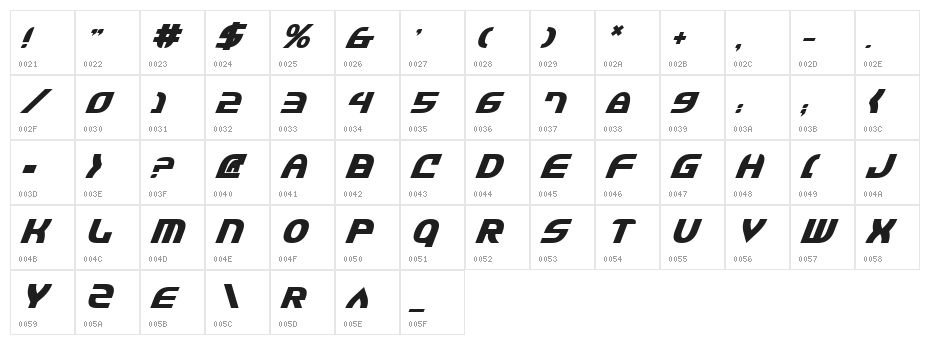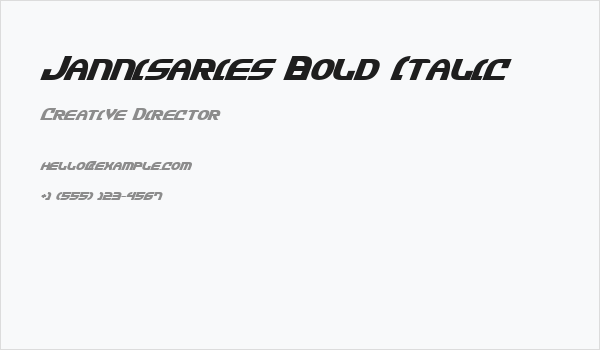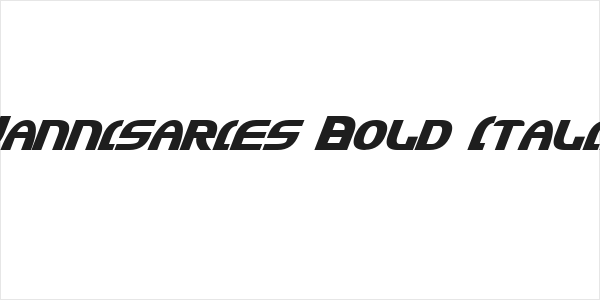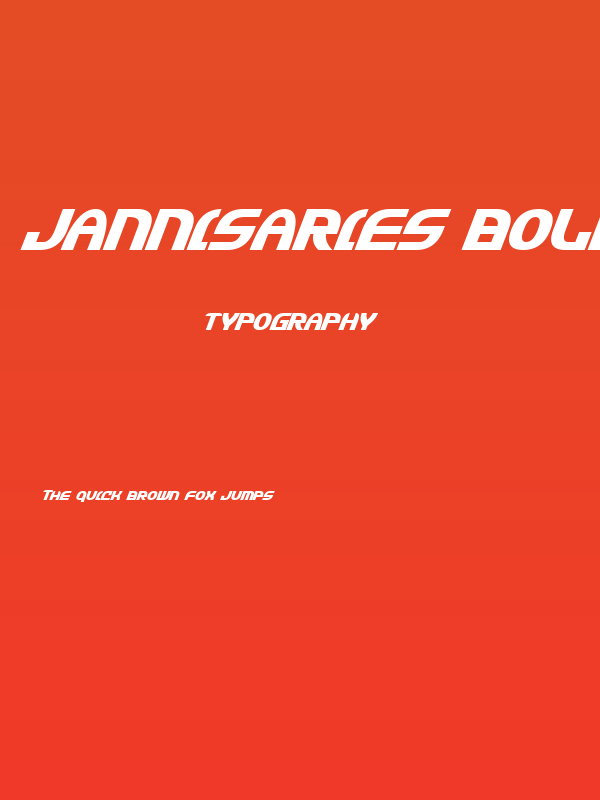
Jannisaries Bold Italic Font
Jannisaries Bold Italic Description
This font features a bold and italicized style with a modern and dynamic appearance. The characters are designed with a forward-leaning slant, giving a sense of motion and speed. The strokes are thick and consistent, providing a strong visual impact. The uppercase and lowercase letters maintain a cohesive design, with angular cuts and sharp edges that enhance its futuristic look. The numbers and special characters follow the same design principles, ensuring uniformity across all glyphs. This font is ideal for projects that require a bold statement and a contemporary feel.
| Proposed Projects | Ideal for branding, sports team logos, automotive designs, and dynamic advertising. |